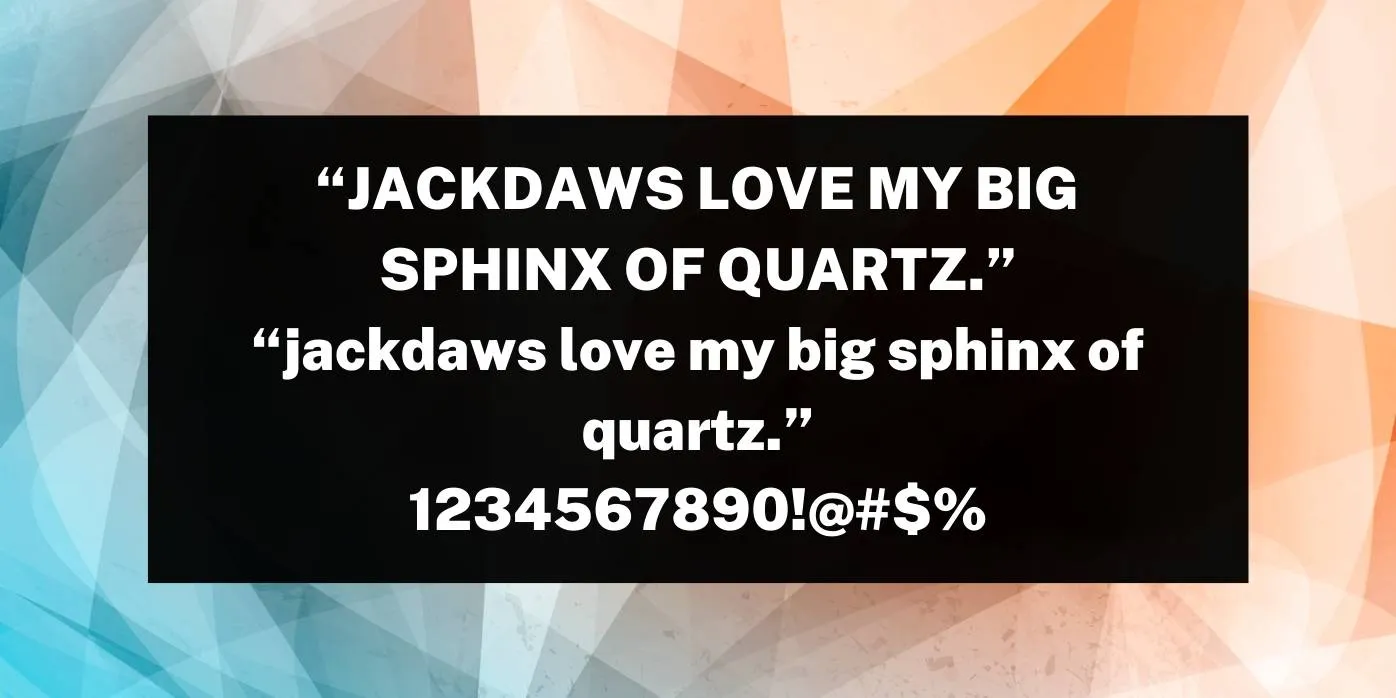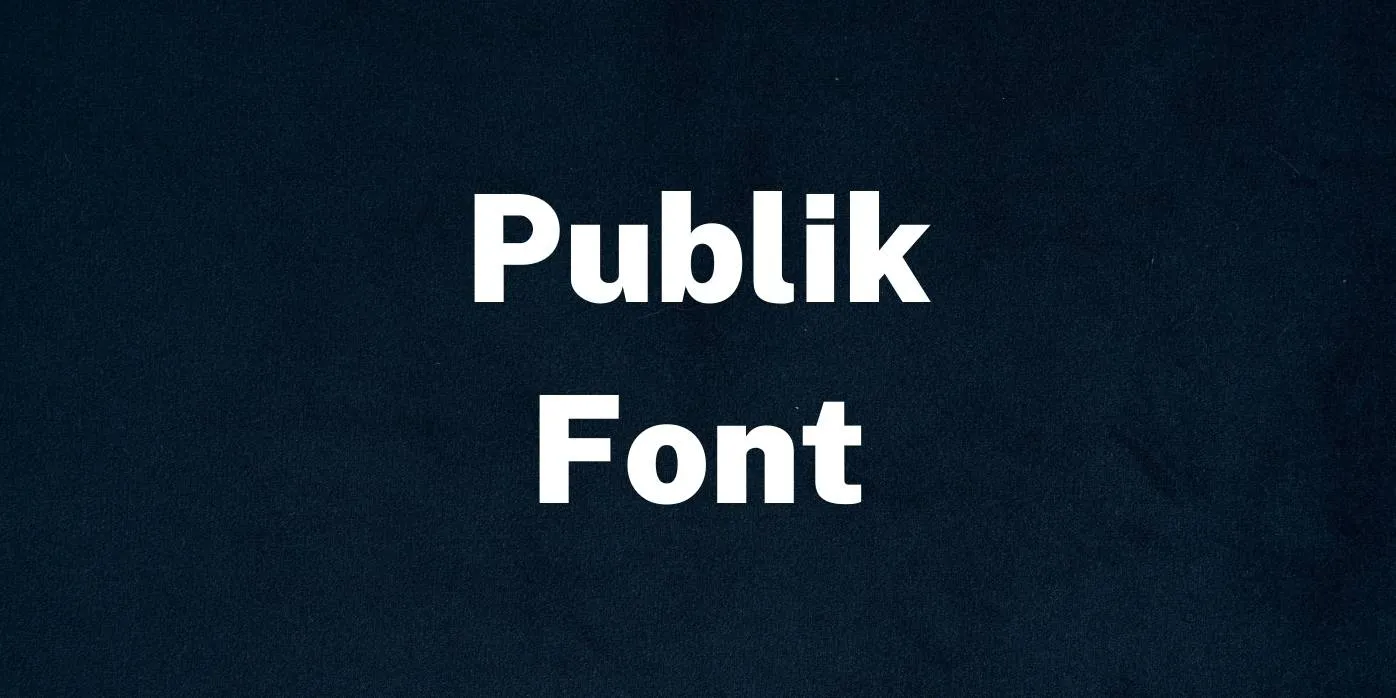
Publik Font
Publik Font is a sans-serif typeface that was designed by Erik Spiekermann and released through his foundry, FontShop, in 2009. The family includes eight weights plus matching italics, from ExtraLight to Black. This is a humanist typeface with influences from both the grotesque and neo-grotesque genres. Its letterforms are relatively open, with a large x-height and wide counters, giving it a friendly appearance.
If you want to pair the typeface and gain much more effect on your designs then use belladonna font in your practical designs. The family includes a number of alternative characters and ligatures to add variety and personality to headlines and text. This is available in both Adobe Fonts (formerly Typekit) and Google Fonts.